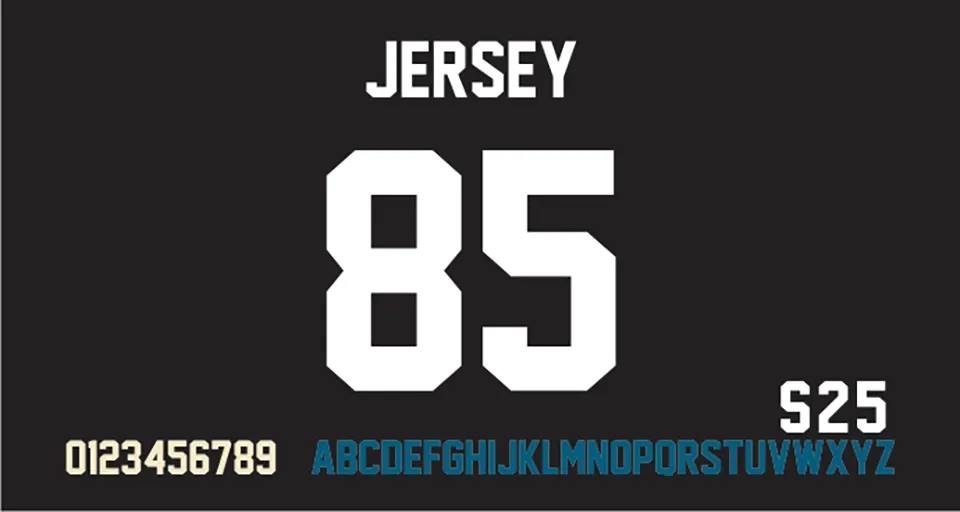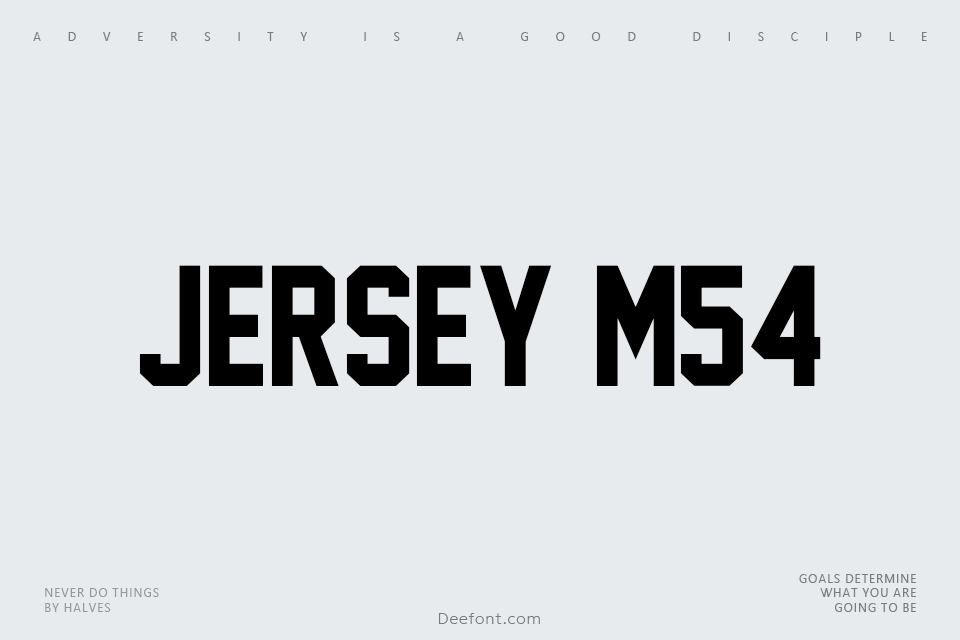
Jersey M54 Font
My version of another classic sports font. Ideal for apparel design and naming sports jerseys. The upper and lower case 'S' and 's' are different, the lower case one being more traditional for this style of font. The left and right curly brackets hold alternate glyphs for numbers '2' and '5'.